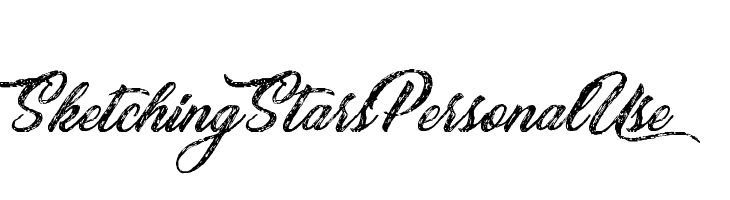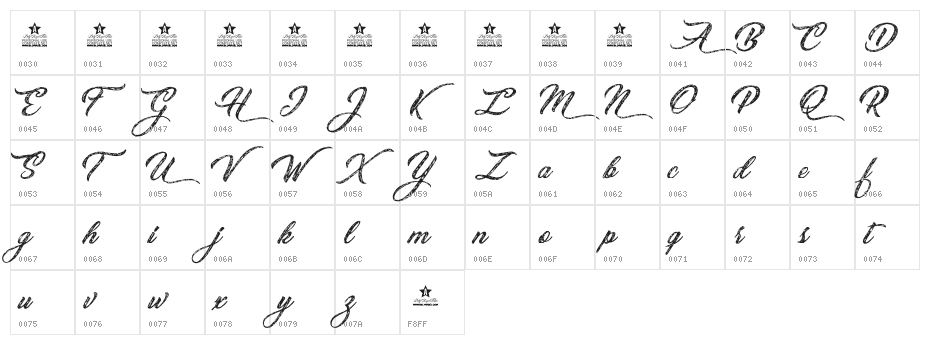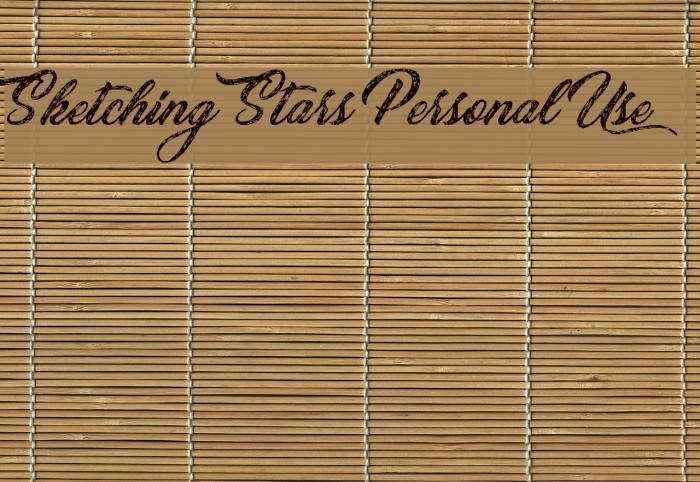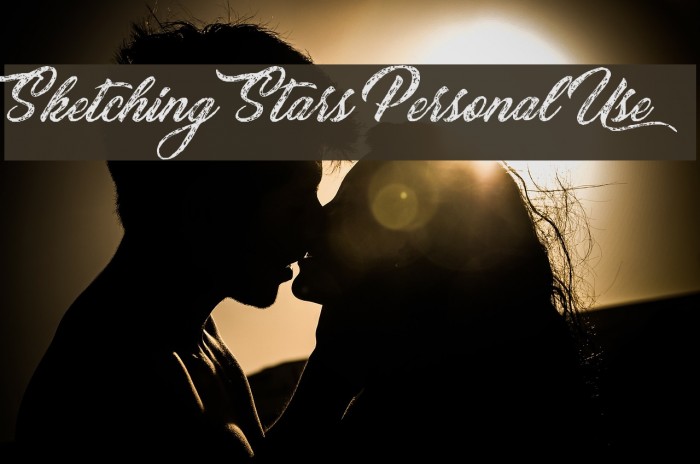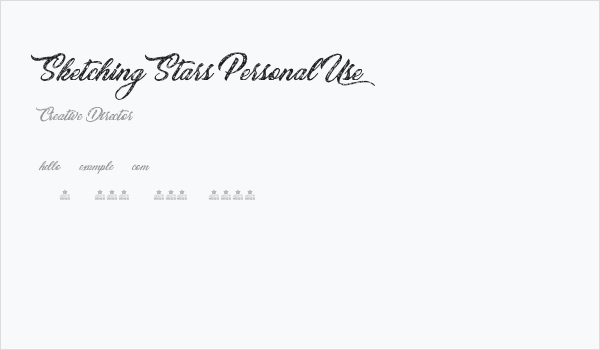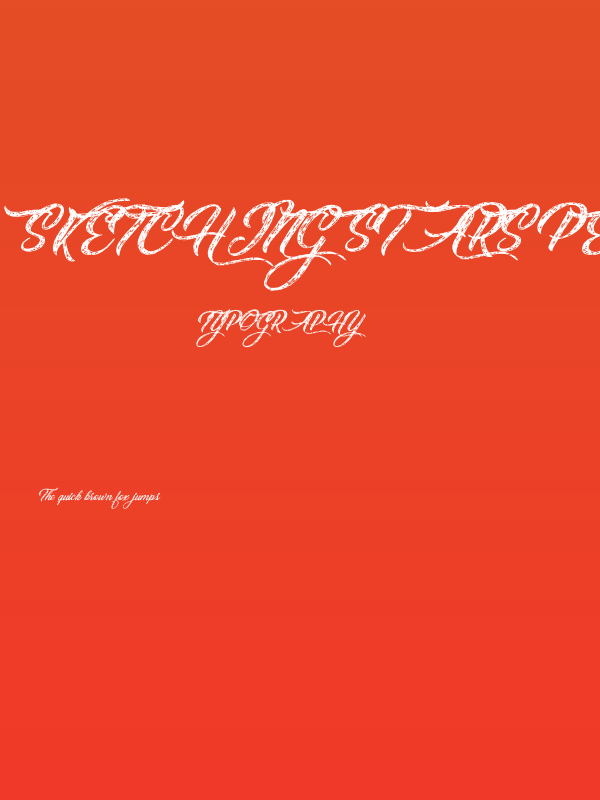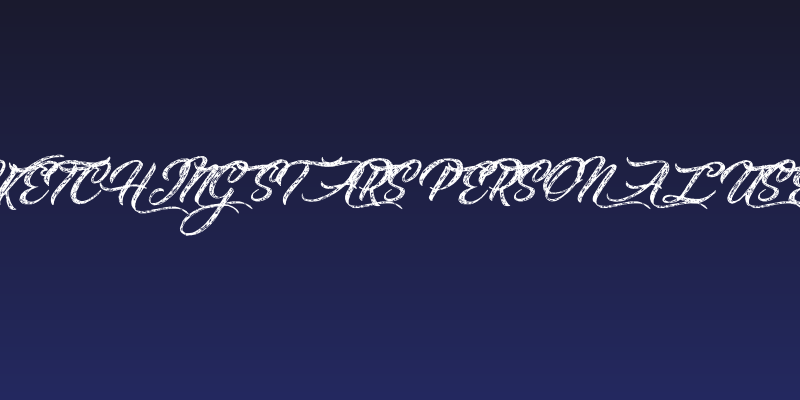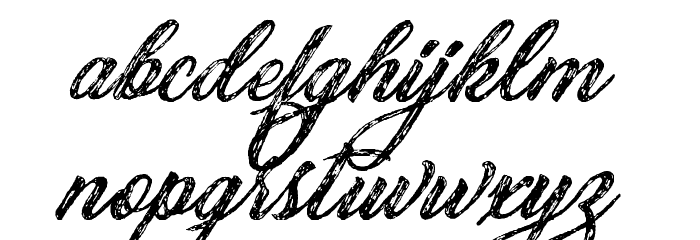
Sketching Stars Personal Use Font
Sketching Stars Personal Use Description
This font features an elegant, flowing script style that mimics the fluidity of hand-drawn calligraphy. The letters are intricately designed with a sense of motion, characterized by sweeping curves and delicate flourishes. The uppercase letters are particularly ornate, with extended strokes that enhance their decorative appeal. The lowercase letters maintain a consistent style, offering a harmonious blend with the uppercase. The font's texture gives it a slightly rough, artistic look, adding to its charm and uniqueness. It captures the essence of a handcrafted piece, making it ideal for projects that require a personal touch.